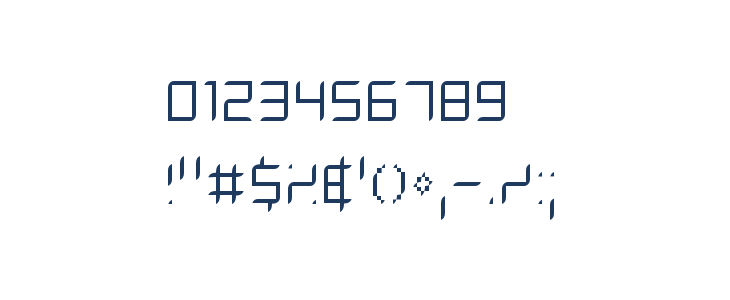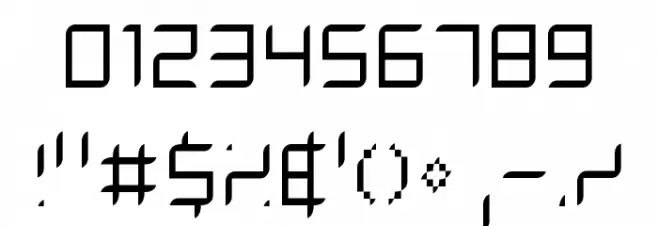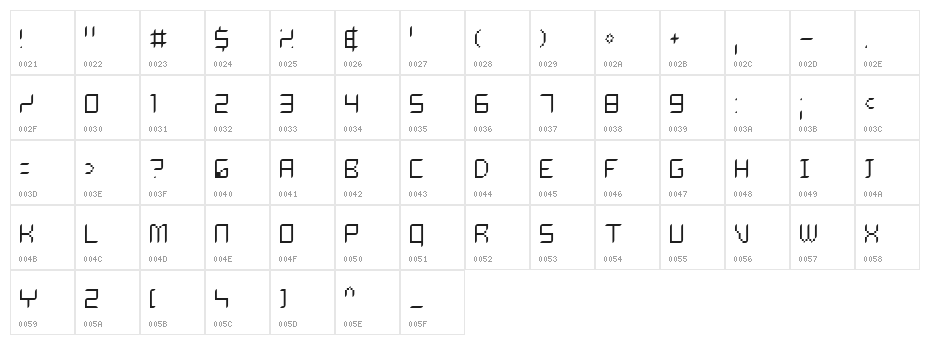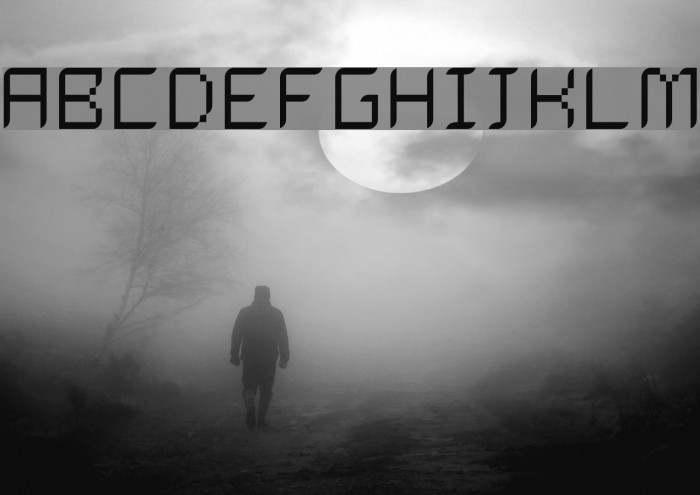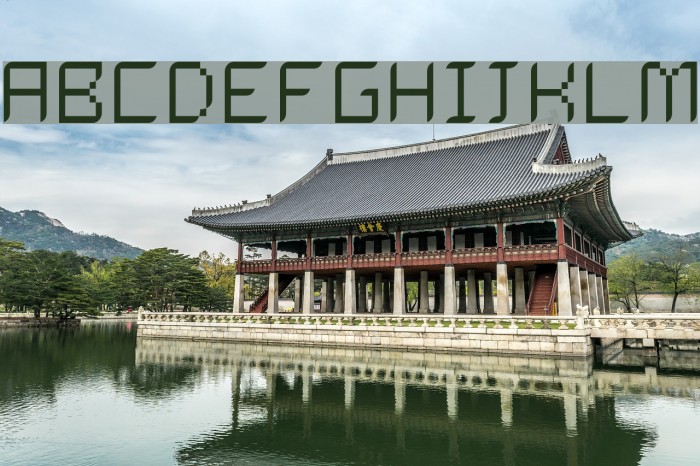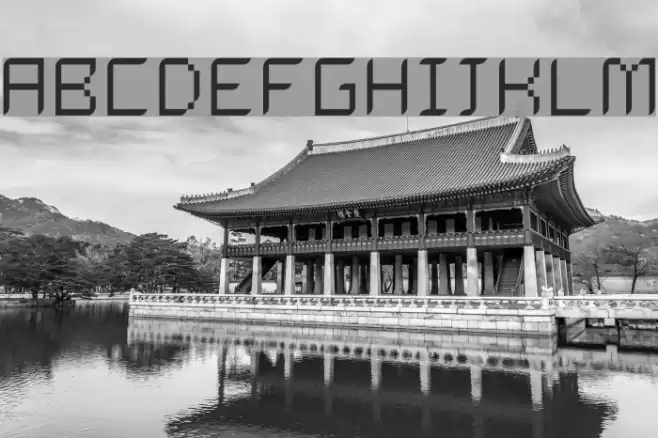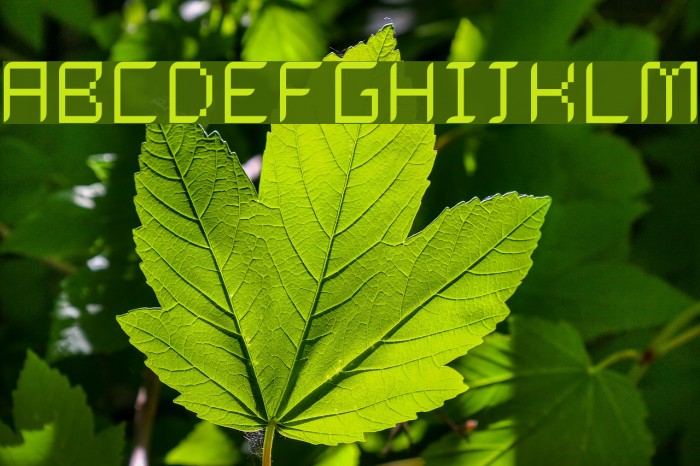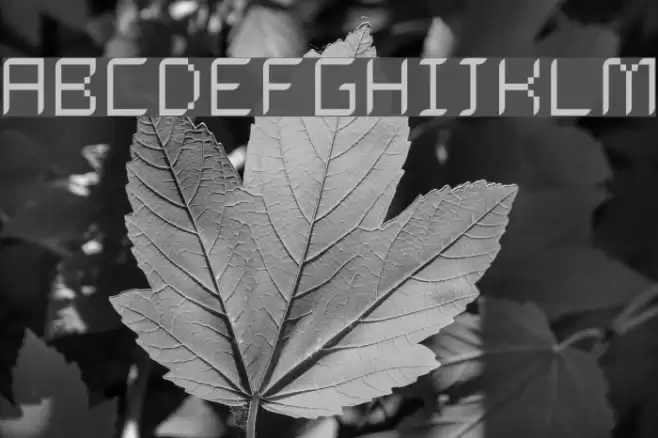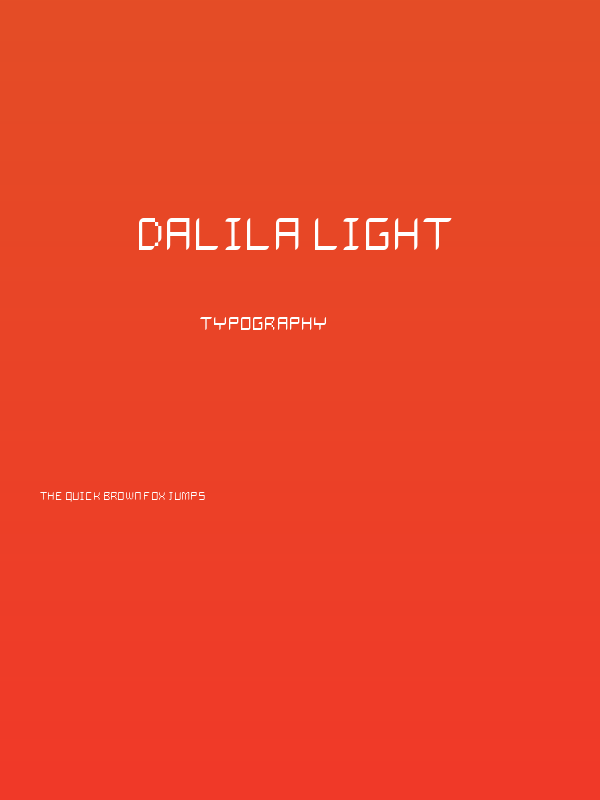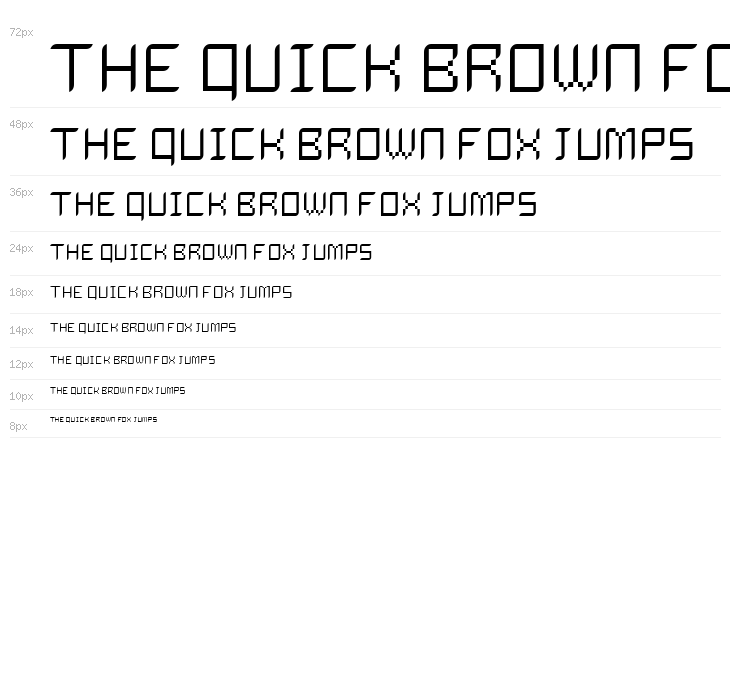
Dalila Light Font
Dalila Light Description
This font features a geometric, grid-like structure with a modern, digital aesthetic. The characters are composed of straight lines and right angles, giving it a pixelated, futuristic look. The uppercase and lowercase letters maintain a consistent height, contributing to a uniform appearance. The numerals and special characters follow the same design principles, ensuring cohesion across all glyphs. The font's style is reminiscent of early digital displays, making it suitable for projects that require a tech-savvy or retro-futuristic vibe.
| Use Case | Logos, Headlines, Digital displays |
| Proposed Projects | Ideal for tech-related branding, digital art projects, video game interfaces, and retro-themed designs. |